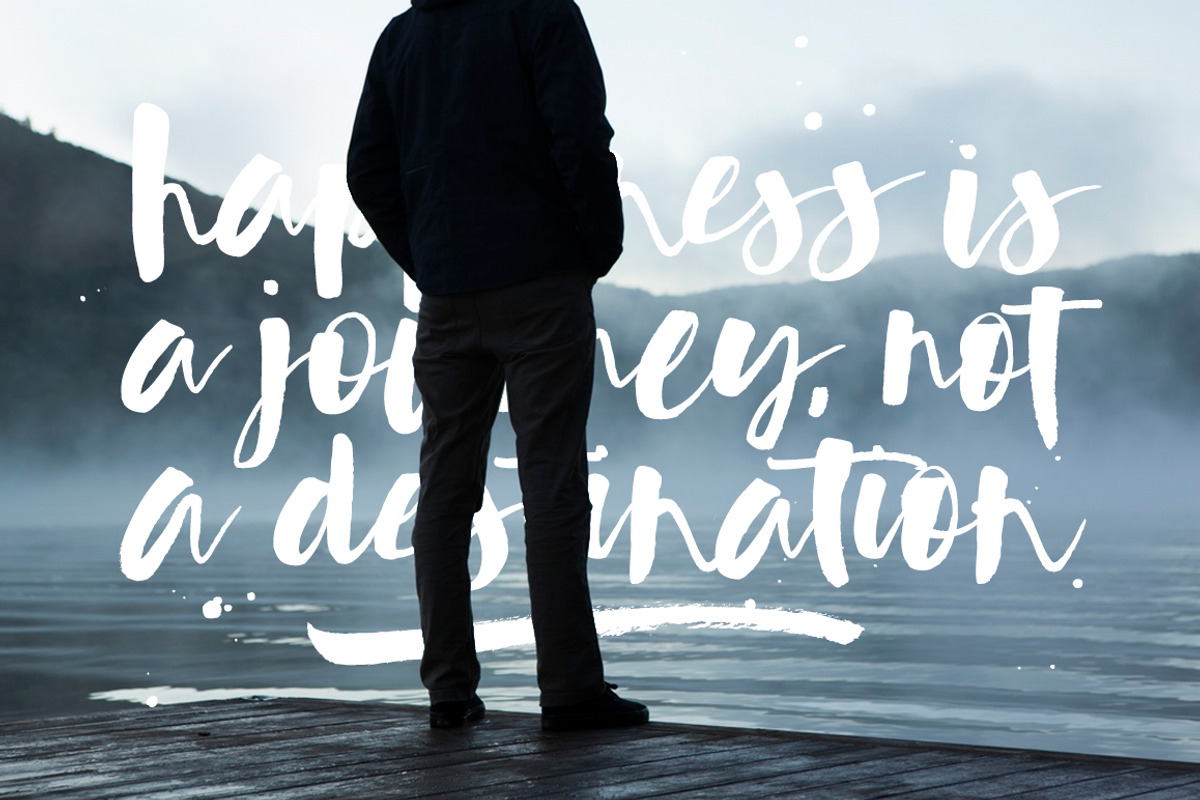
Lunar Blossom
I'm really pleased to introduce Lunar Blossom - a versatile and artistic set of hand-made brush fonts!
With a very distinct weight contrast and an authentic brushed style, Lunar Blossom is guaranteed to give your text a personal, custom-made feel - perfect for logos, printed quotes, invitations, cards, product packaging, headers and whatever your imagination holds.
The font comes with plenty of great features to keep you busy;
- Every character has it's own alternate version, allowing you to create unique words & layouts.
- There's also a second font Lunar Blossom Brush, which contains dry-brush textures throughout. This gives you the option of choosing between a cleaner & rougher brush texture for your text.
- Both fonts have a large range of characters including ligatures and multilingual support.
- We're not done yet! To give you that finishing touch to your text, I've also included a font of bonus extras, which includes 12 hand-painted swashes/underlines, as well as 6 combinations of paint splatters.